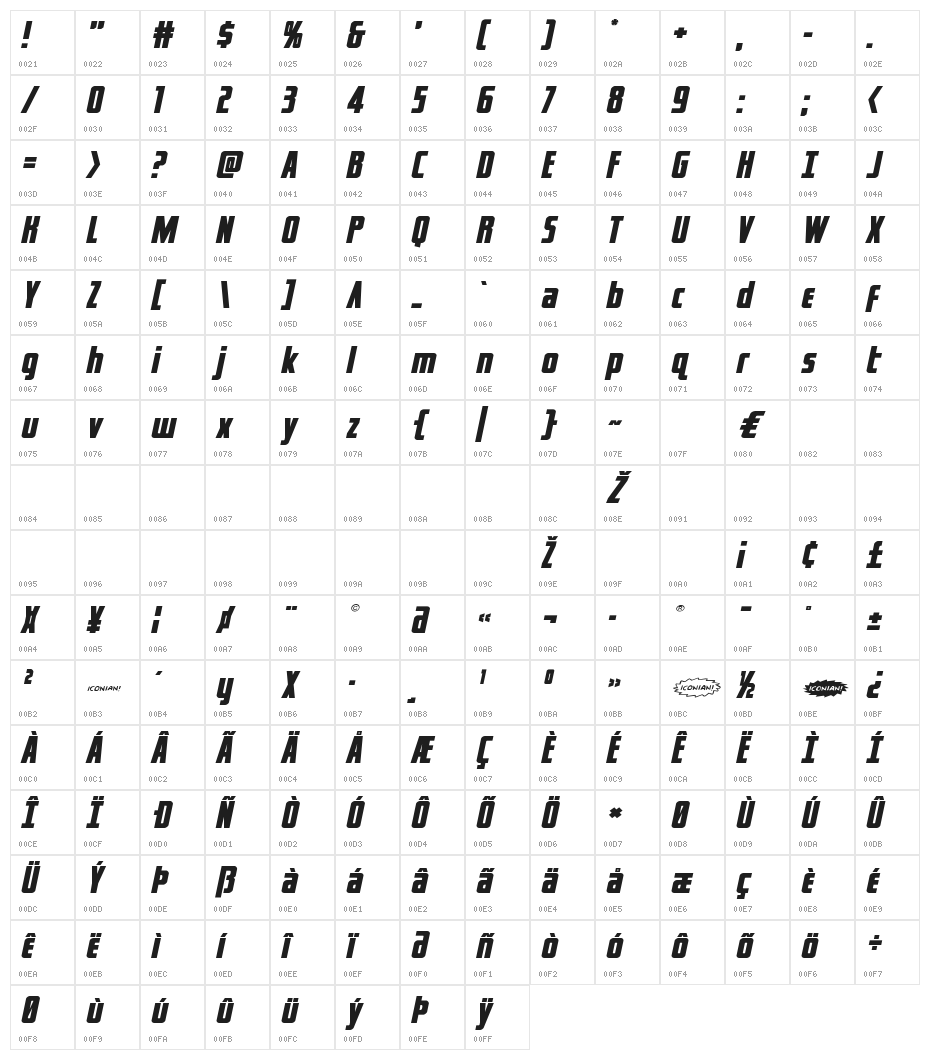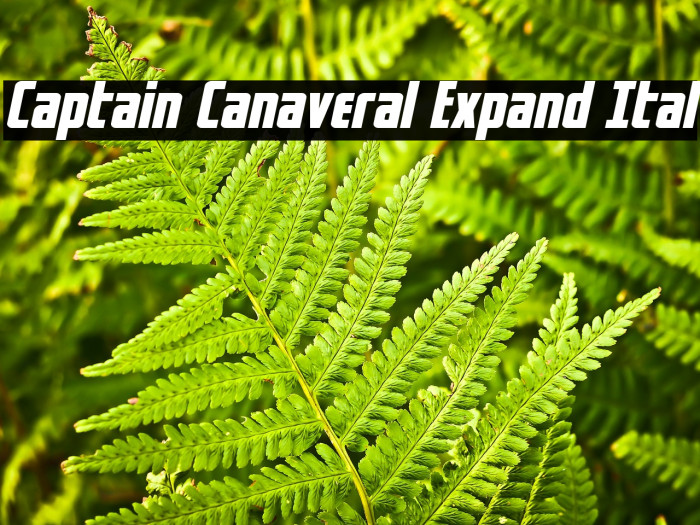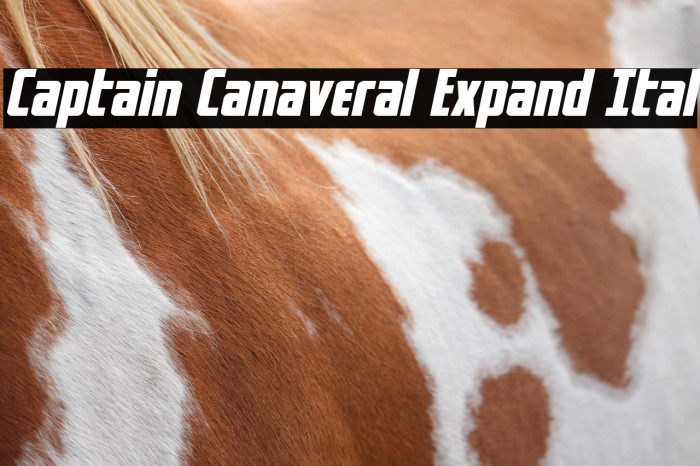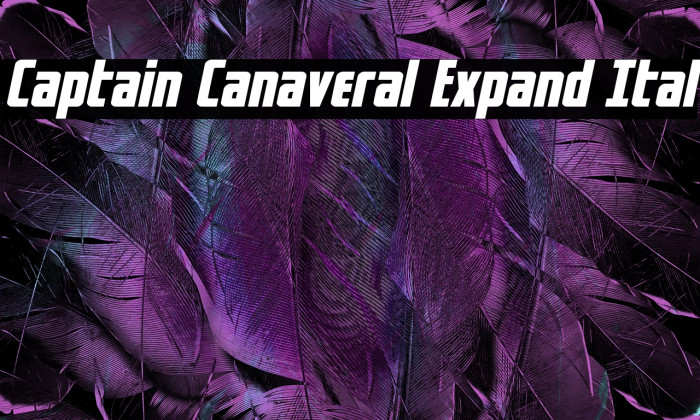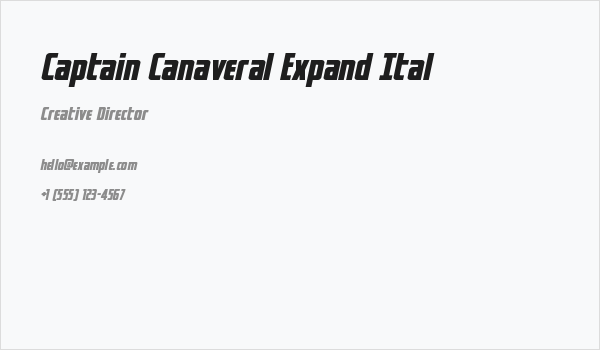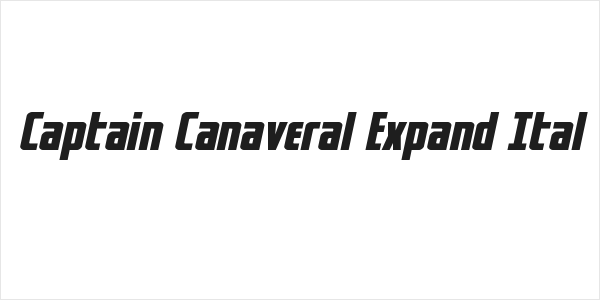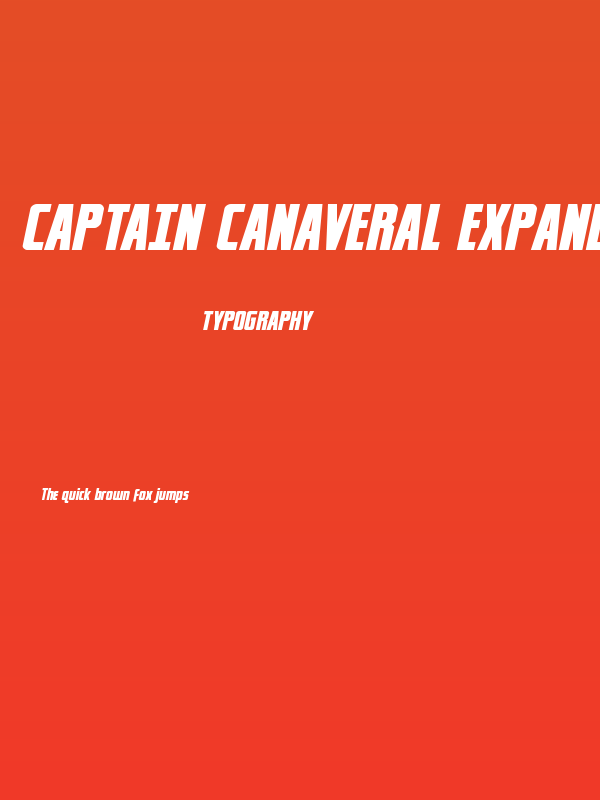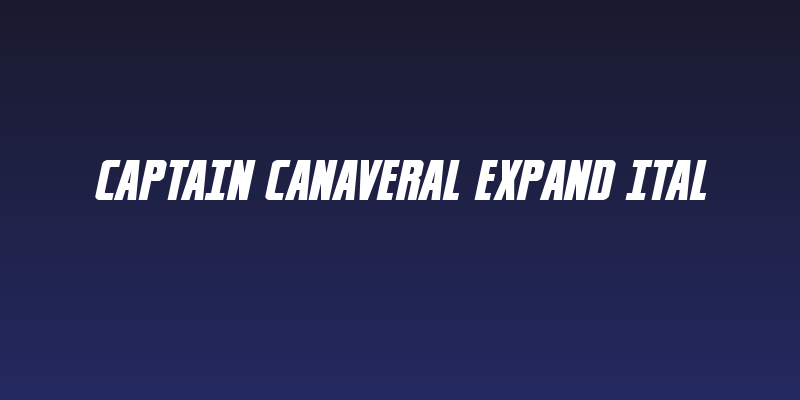
Captain Canaveral Expand Ital Font
Captain Canaveral Expand Ital Description
This font features a bold and dynamic style with an expanded width and italicized slant, giving it a sense of motion and energy. The characters are robust and angular, with sharp edges and a strong presence. The uppercase and lowercase letters maintain a consistent style, while the numbers and special characters are designed to complement the overall look. The font's expanded nature makes it ideal for making a statement, while the italic slant adds a touch of modernity and flair.
| Proposed Projects | Ideal for sports branding, dynamic posters, futuristic designs, and any project requiring a bold statement. |